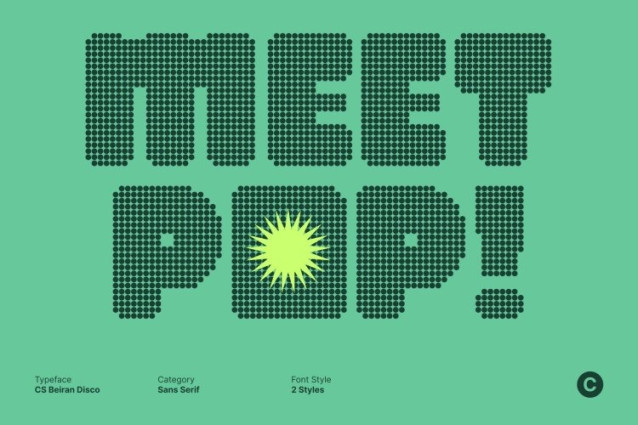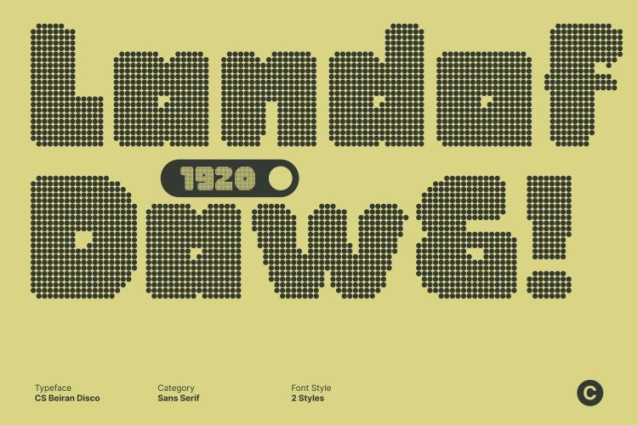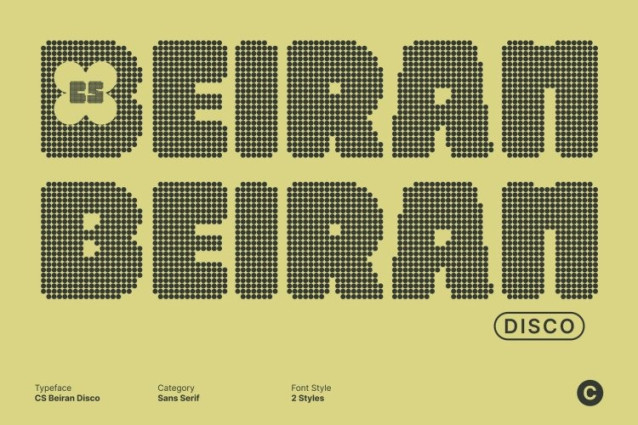
CS Beiran Disco Font
CS Beiran Disco Font This is a bold, chunky display font designed to make an instant impression. Its strong, blocky letterforms project confidence and clarity, while subtle funky details draw inspiration from the vibrant visual culture of the 70s to early 80s disco era. The result is a font that feels playful, rhythmic, and full of character.
Thick Strokes for Powerful Visual Impact
Built with thick strokes and clean construction, this font delivers excellent legibility and a commanding presence. Its solid structure ensures text stands out effortlessly, making it an ideal choice for attention-grabbing headlines, posters, signage, and bold branding that demands visibility and style.
Playful Energy Meets Modern Structure
This font balances geometric precision with quirky, retro charm. This fusion creates a look that feels nostalgic yet contemporary perfect for designs that want to capture cheerful disco energy while maintaining a polished, modern aesthetic.
Perfect for Cheerful, Eye-Catching Creative Projects
From product packaging and branding to social media graphics and editorial layouts, this font brings bold charm and lively movement to any creative project. Whether aiming for retro disco flair or modern visual impact, this font ensures your message feels confident, fun, and unforgettable.